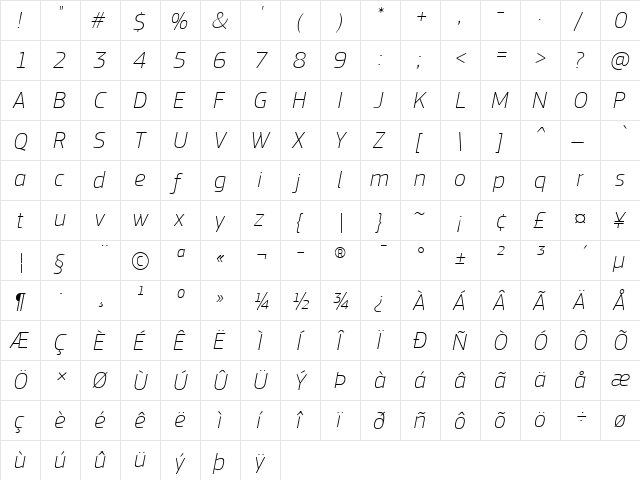
PF Square Sans Pro Thin Italic Font Preview
| Foundry | Parachute蠗orldwide |
| Designer | Panos Vassiliou |
Design Context for PF Square Sans Pro Typeface
PF Square Sans Pro takes a measured approach to typography — its balanced proportions and neutral character make it a reliable workhorse for both digital and print work. Its italic angle brings a sense of urgency and motion to the letterforms. The delicate stroke weight brings airiness and refinement to layouts.
Pro Tip: Use PF Square Sans Pro for emphasis, pull quotes, and subheadings where its slanted energy can add rhythm to the layout.